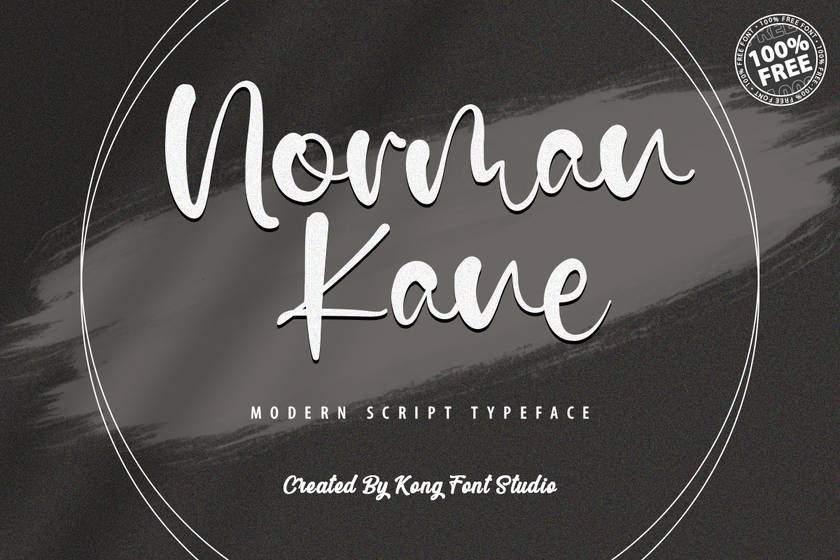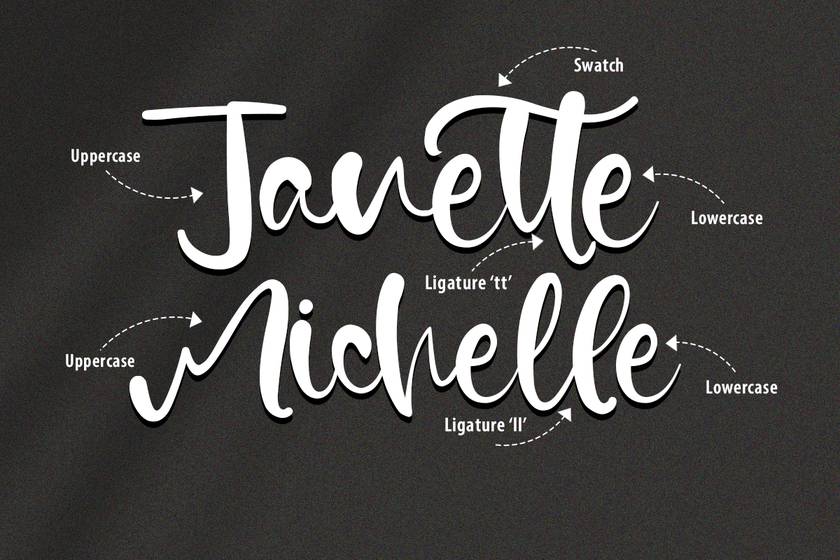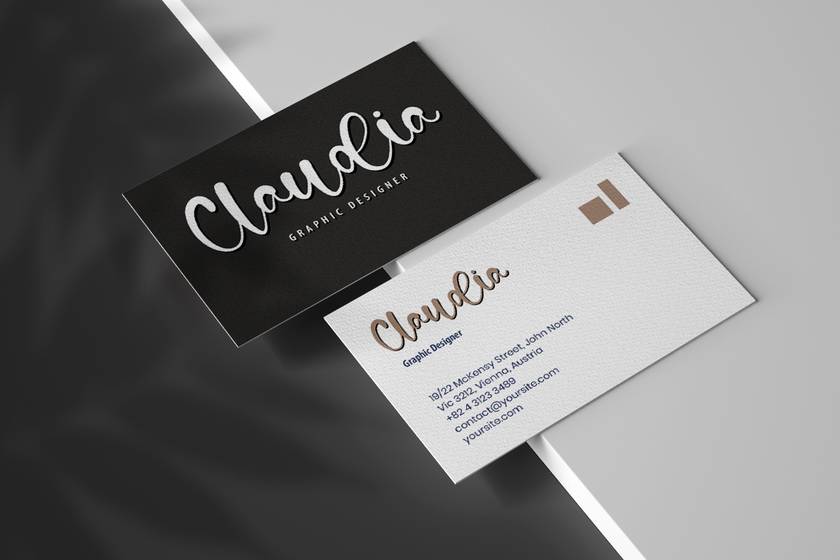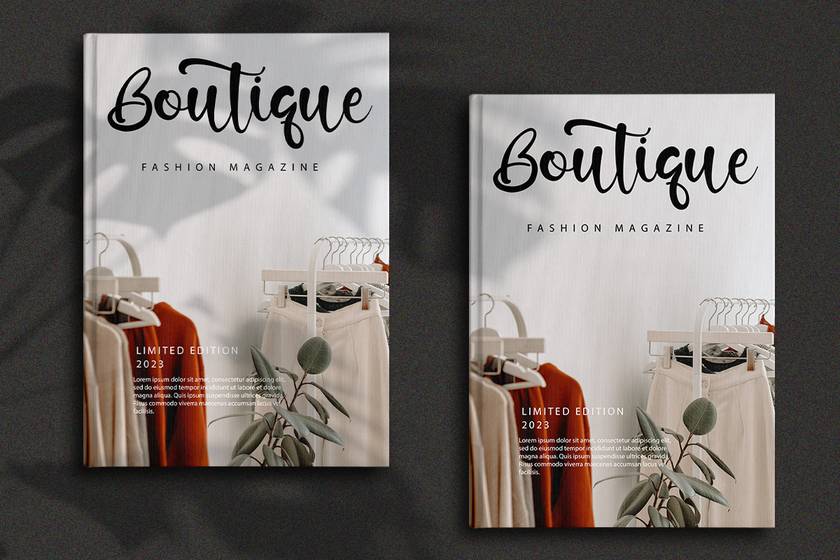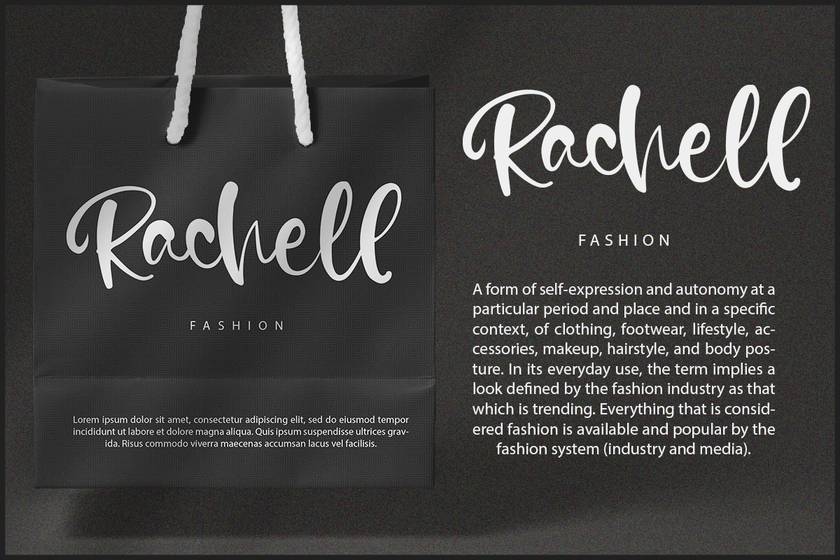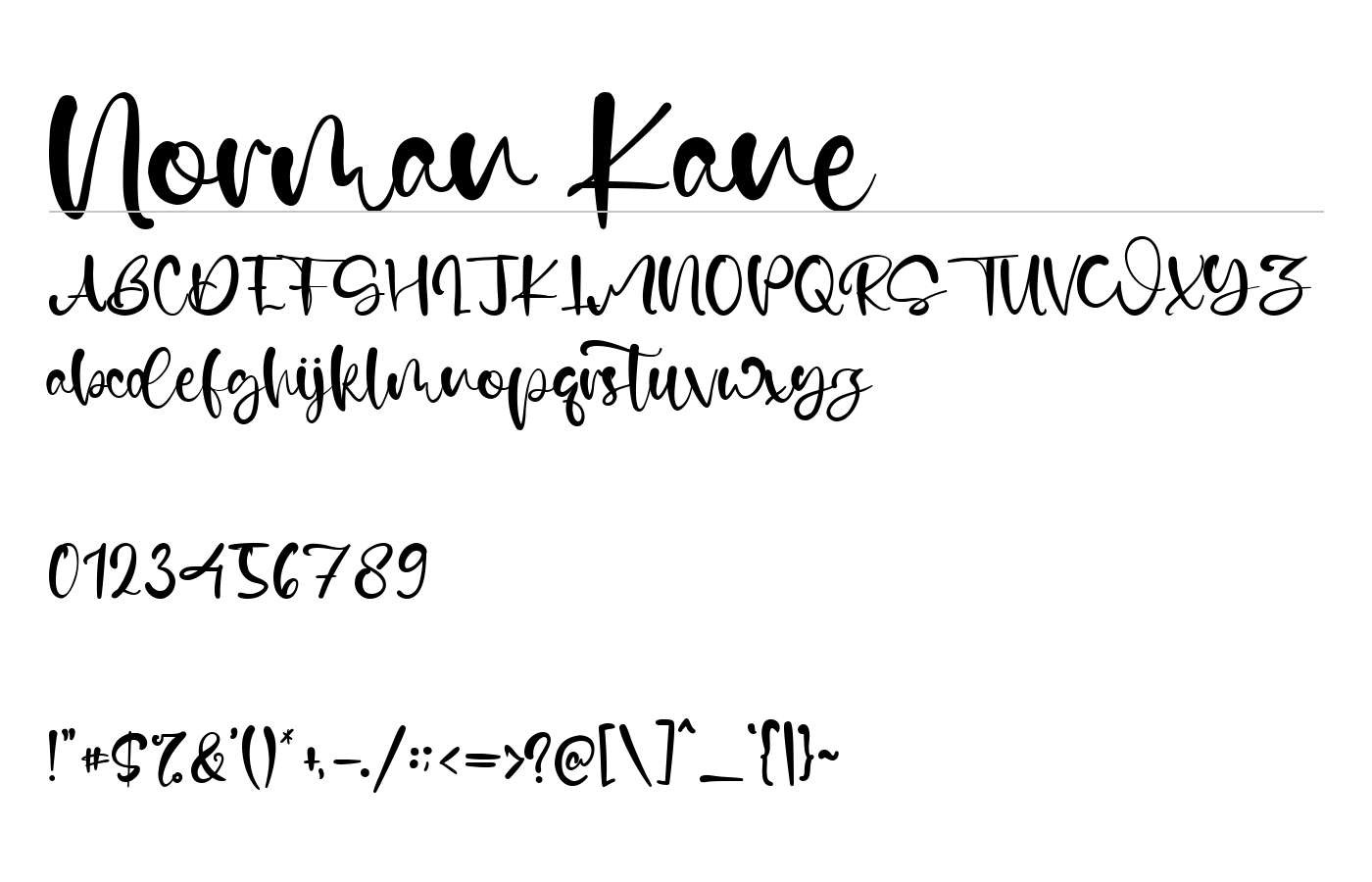
Norman Kane is a playful and elegant script font that features fluid, hand-drawn letterforms with medium stroke contrast and a lively, casual flair. It offers a unique blend of readability and personality, making it ideal for creative branding, invitations, and eye-catching headlines that require a personal, friendly touch. This font works well where a stylish yet approachable aesthetic is desired.
Norman Kane Font
About Norman Kane Font